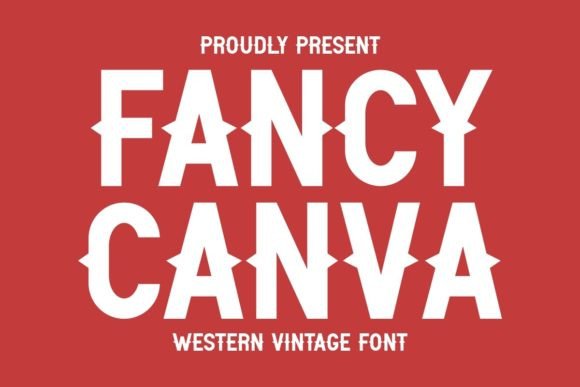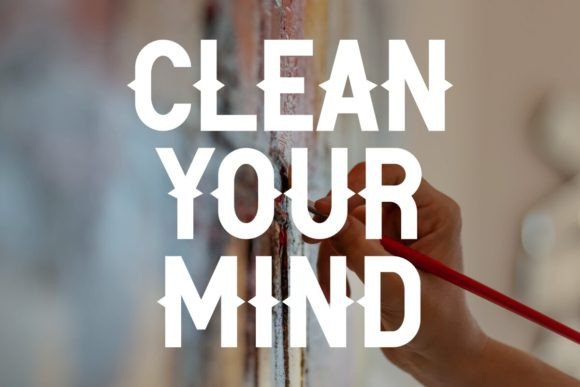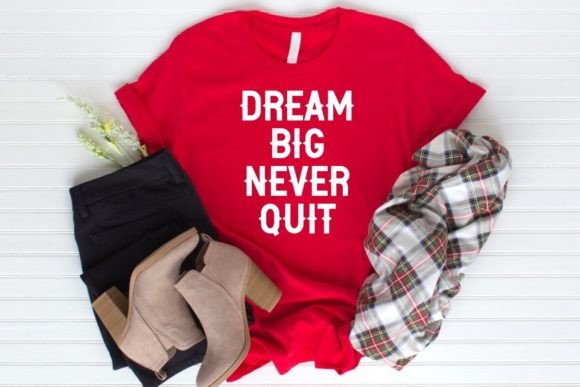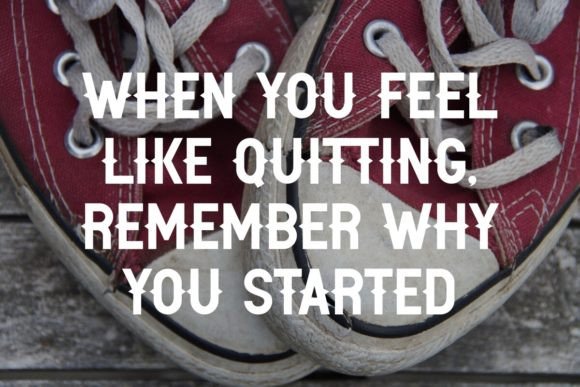
Fancy Canva Font
About the Fancy Canva Font
Discover the charm of Fancy Canva Font. This font is a perfect blend of modern aesthetics and classic appeal. Fancy Canva is a western vintage font that combines rustic charm with elegant design. Fancy Canva adds a touch of timeless character to any project. Perfect for posters, quotes, mugs, tote bags and decorative frames.
Its strong verticality and decorative elements make Fancy Canva ideal for headlines, short impactful phrases, and logos requiring a vintage aesthetic. It excels in branding for artisanal products, coffee shops, or boutiques seeking a rustic yet sophisticated feel. However, its decorative nature makes it unsuitable for body text or UI elements where readability is paramount. Avoid using it in long paragraphs or small sizes.
For optimal visual harmony, pair Fancy Canva with a clean sans-serif like Montserrat for a balanced contrast, or a more geometric sans-serif like Futura for a modern twist. A classic serif like Garamond could also complement its vintage charm, providing a sophisticated counterpoint. Avoid pairing it with other heavily embellished fonts.
Fancy Canva projects an overall personality of refined rusticity; it’s bold yet elegant, conveying both a sense of history and contemporary style. This makes it a versatile choice for projects that require a blend of traditional charm and modern appeal.
Fancy Canva Font Usage Examples
Fancy Canva Font Example